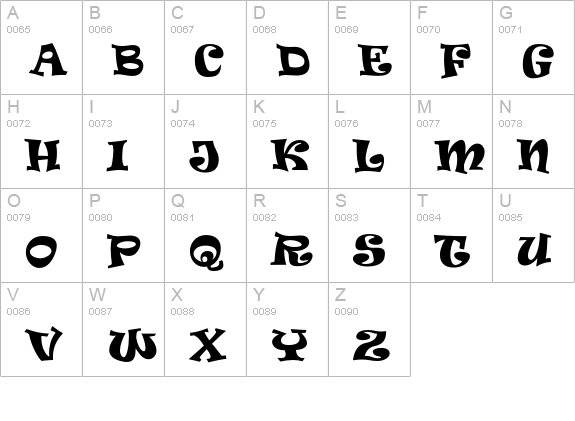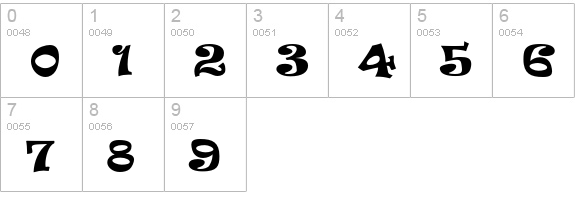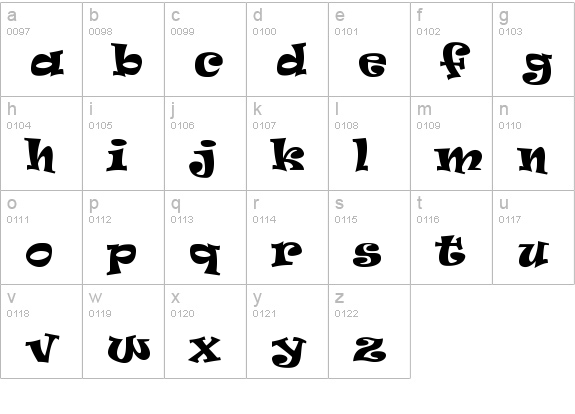
Ravie Font Details
Ravie font is a charming and playful typeface that exudes a sense of fun and excitement. Designed with bold, rounded letterforms, this font is perfect for adding a touch of joy and whimsy to any design project. Whether you're working on a children's book, a birthday invitation, or a vibrant poster, Ravie font will surely capture the attention of your audience. What makes Ravie font even more appealing is that it is available for free. Yes, you read that right! You can download this delightful font without spending a dime. Simply head over to FontsMarket.com, where Ravie font is freely available for download. It's the perfect opportunity to bring some cheer into your designs without breaking the bank. With its generous curves and lively personality, Ravie font is a true standout. Its bold and unique appearance will make your text pop and leave a lasting impression. Whether you're looking to add a touch of playfulness to your website, create eye-catching headlines, or add a splash of personality to your branding, Ravie font is the ideal choice. Don't miss out on the opportunity to get your hands on this fabulous font for free. Visit FontsMarket.com today and download Ravie font to elevate your designs to new heights of creativity and joy. Let Ravie font be the secret ingredient that sets your designs apart, and watch as it brings a smile to the faces of your audience.